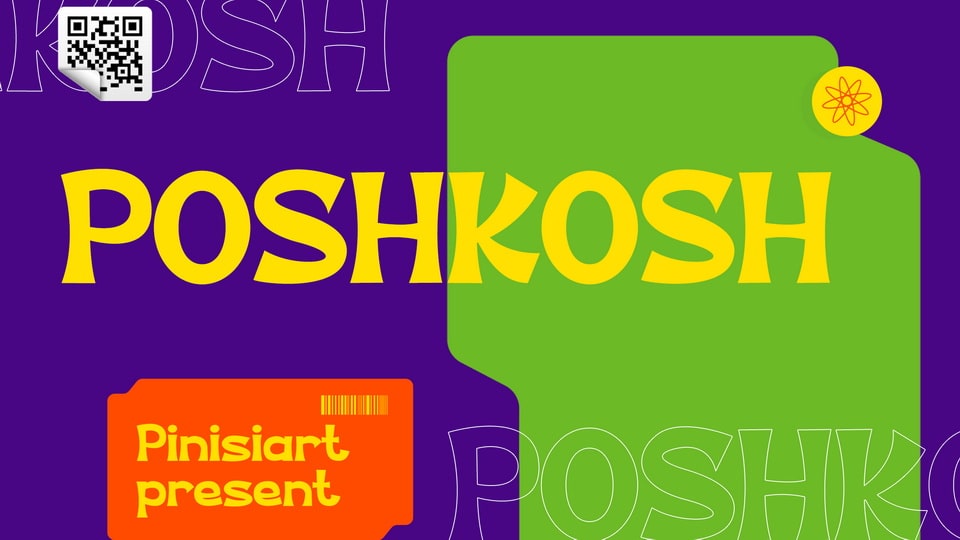
Download Poshkosh font, a quirky display typeface. An instant attention grabber, Poshkosh will be making head turn, steps stop, and lips whispering about your current event.